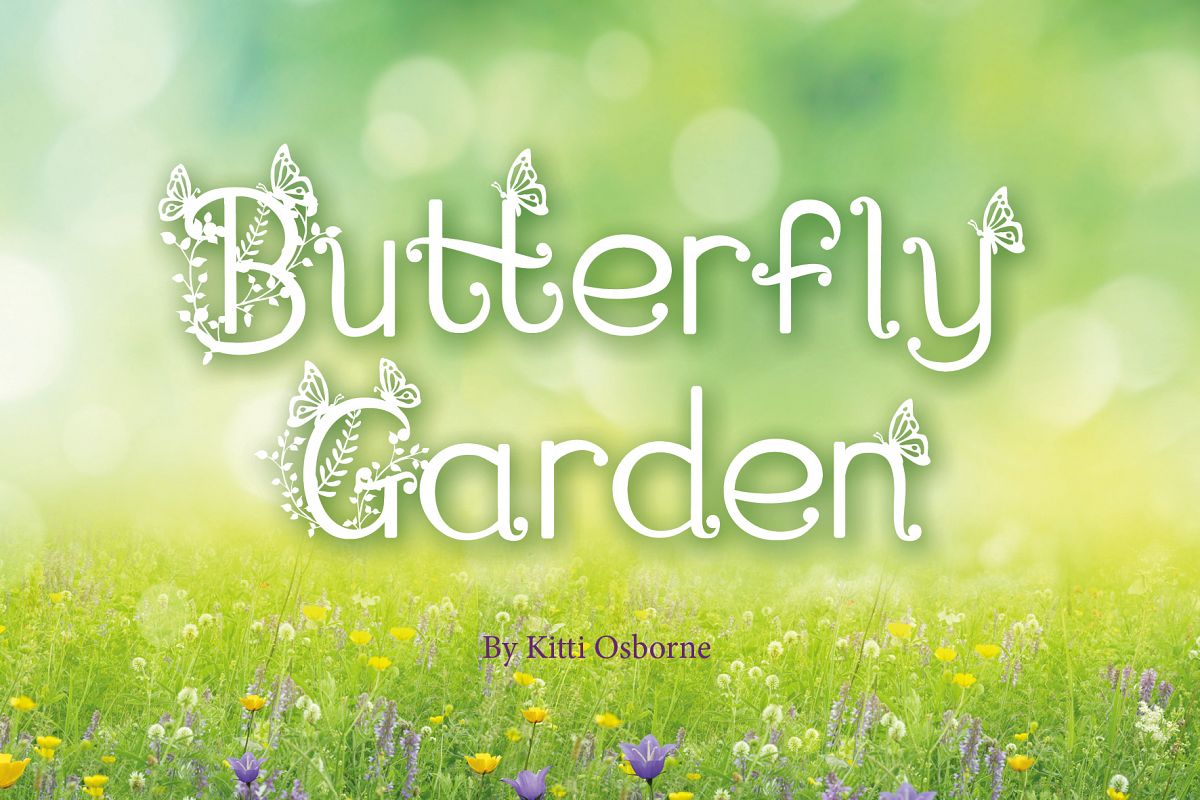
Butterfly Garden
Updated – Font reorganized for easier glyph access! Now includes one butterfly embellished font, one plain font and one extra's font
Welcome to my Butterfly Garden, a fun display font perfect for crafting.
Butterfly Garden is an elegant, decorative, feminine font. With butterflies and foliage. The uppercase letters are ideal for your wedding monograms and logos. Use this font for wedding invitations, branding, packaging, magazines, florist shops, social media, restaurant menus, greeting cards, headers and many more.